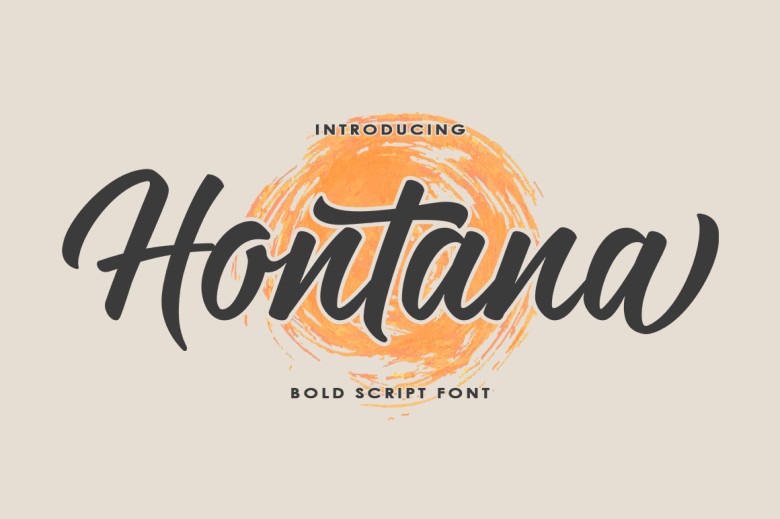
Hontana Font
Hontana features an adorable brush typeface and makes for the ideal font choice when creating Instagram, DIY, and calligraphy scripts.
Hontana Brush Script Font